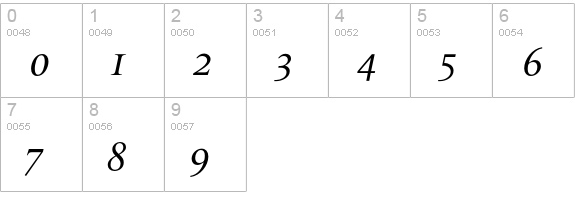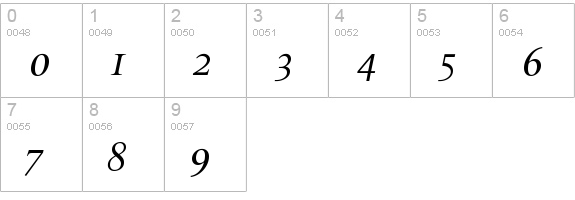
LeMondeLivre Italic Oldstyle Figures is a distinctive, italic variant in the LeMondeLivre typeface family \xE2\x80\x94 well suited to design and typography projects.
LeMondeLivre Italic Oldstyle Figures font is a timeless and sophisticated typeface that exudes elegance and refinement. With its graceful curves and delicate strokes, this font captures the essence of classical typography while adding a modern twist. The oldstyle figures in LeMondeLivre Italic bring a sense of tradition and artistry to any design project. Each number is meticulously crafted to harmonize with the rest of the characters, creating a cohesive and visually pleasing composition. Whether used in headlines, body text, or even in logos, these figures add a touch of sophistication and professionalism. But what truly sets LeMondeLivre Italic Oldstyle Figures font apart is that it is freely available to download at FontsMarket.com. This means that designers, artists, and typographers can enjoy the beauty and versatility of this font without any cost. The accessibility of this font allows for creativity to flourish and enables designers to bring their visions to life. With its seamless integration into various design projects, LeMondeLivre Italic Oldstyle Figures font is a reliable and versatile choice. Its timeless appeal and modern sensibility make it suitable for a wide range of applications, from print to digital media. Whether used in editorial layouts, invitations, or branding materials, this font will elevate the visual impact of any design. Experience the beauty and versatility of LeMondeLivre Italic Oldstyle Figures font today by downloading it for free at FontsMarket.com. Embrace the elegance and sophistication that this font brings to your design projects, and let your creativity shine.